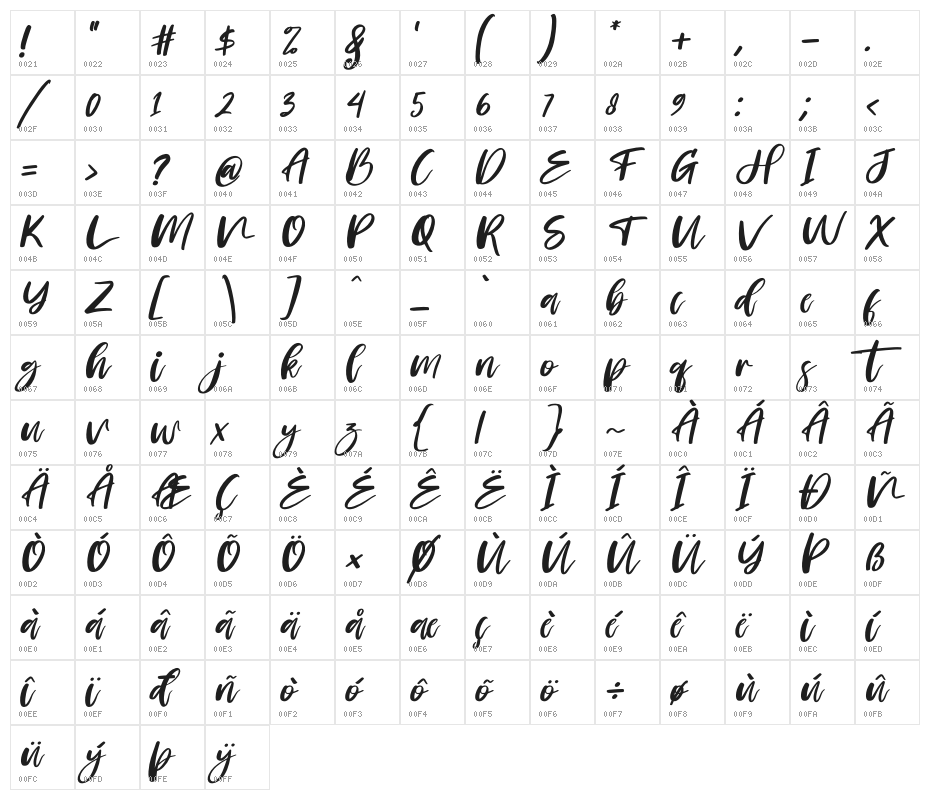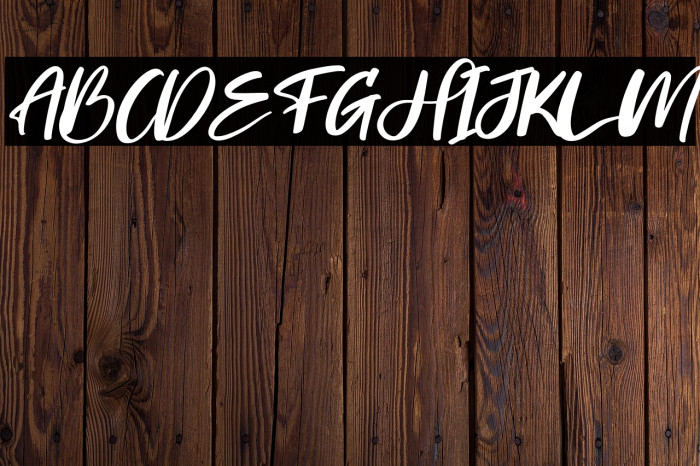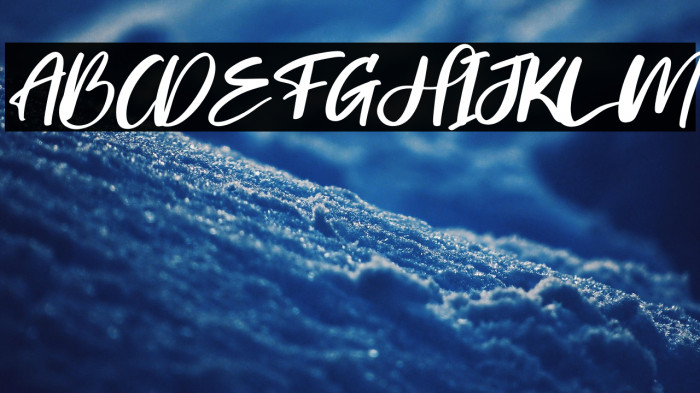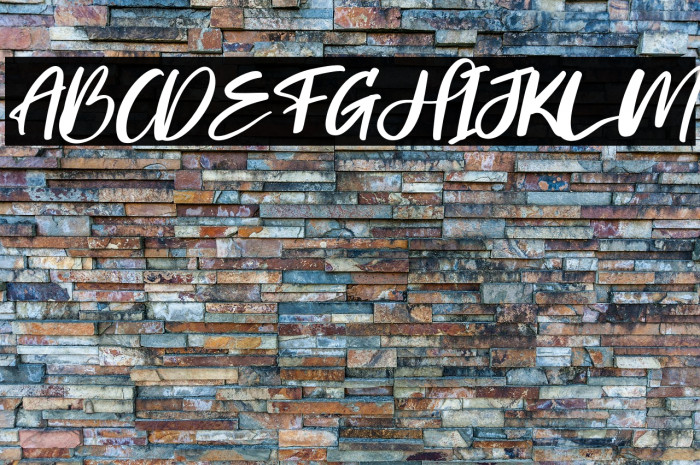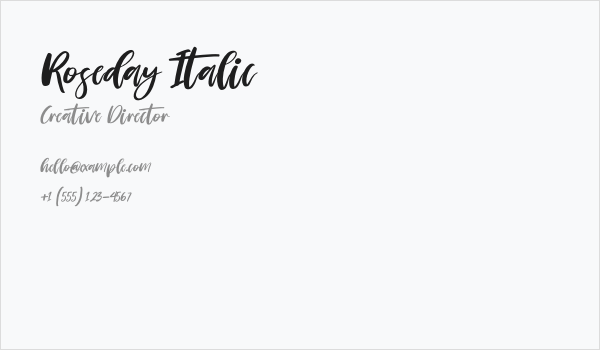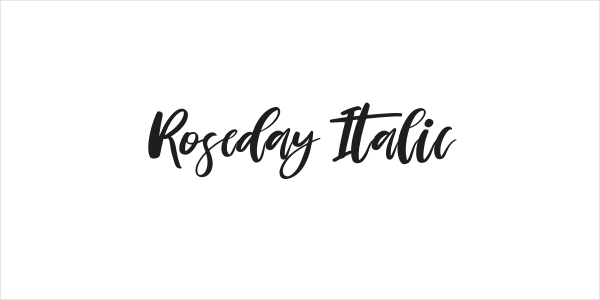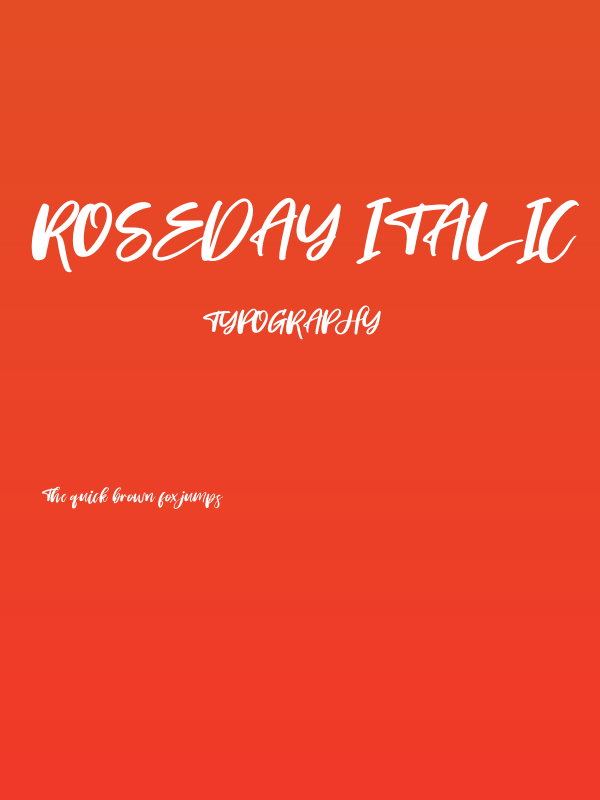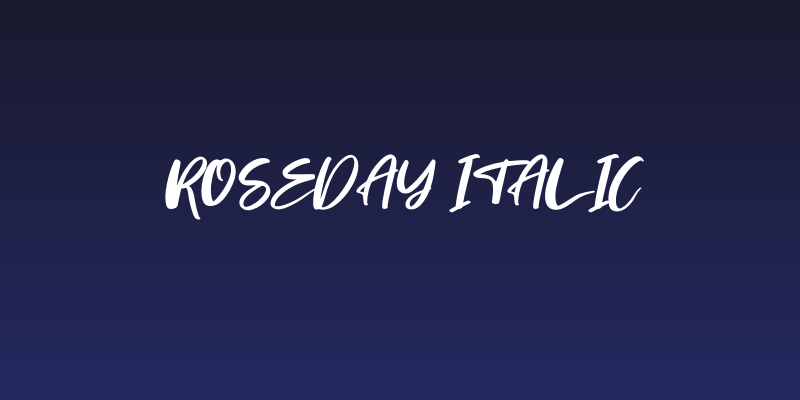
Roseday Italic Font
Roseday Italic Description
This font features a dynamic and flowing script style, characterized by its elegant and cursive letterforms. The letters are interconnected, creating a seamless and fluid appearance that mimics natural handwriting. The strokes are bold and confident, with a slight slant that enhances the italicized effect. The uppercase letters are distinct and prominent, while the lowercase letters maintain a consistent rhythm and balance. The numerals and special characters are crafted with the same attention to detail, ensuring a cohesive look across all elements. This font exudes a sense of sophistication and creativity, making it ideal for projects that require a personal and artistic touch.